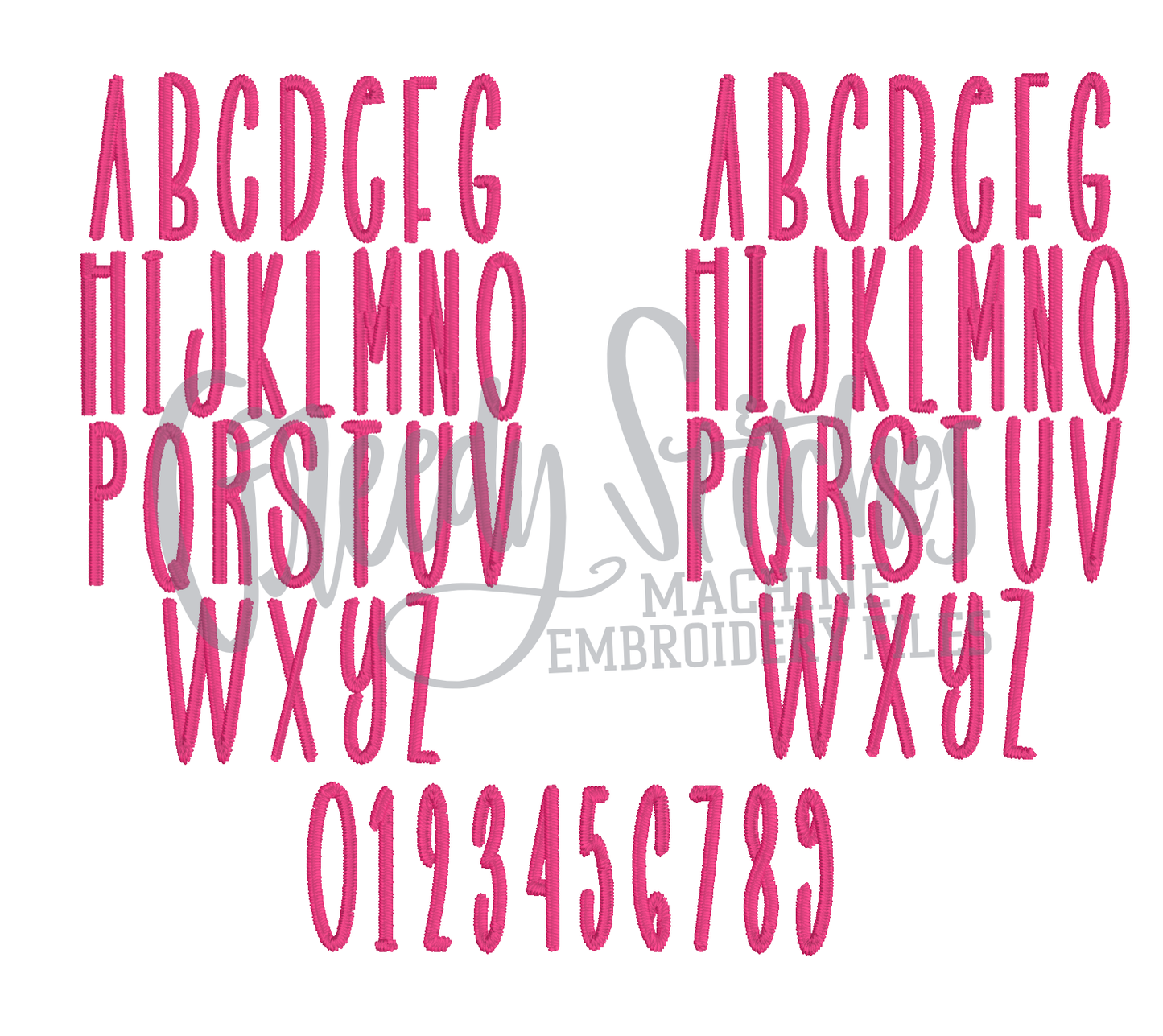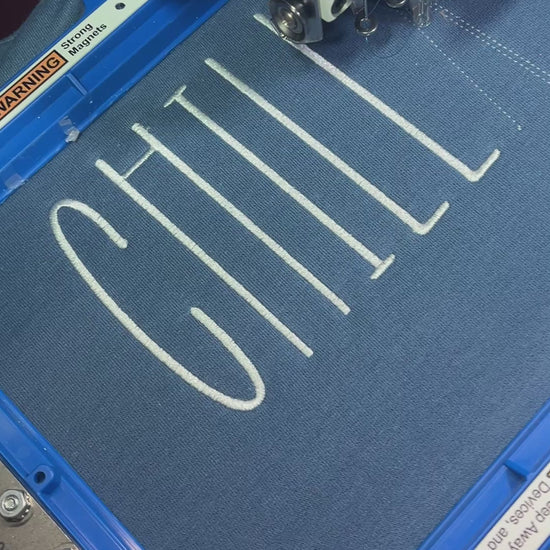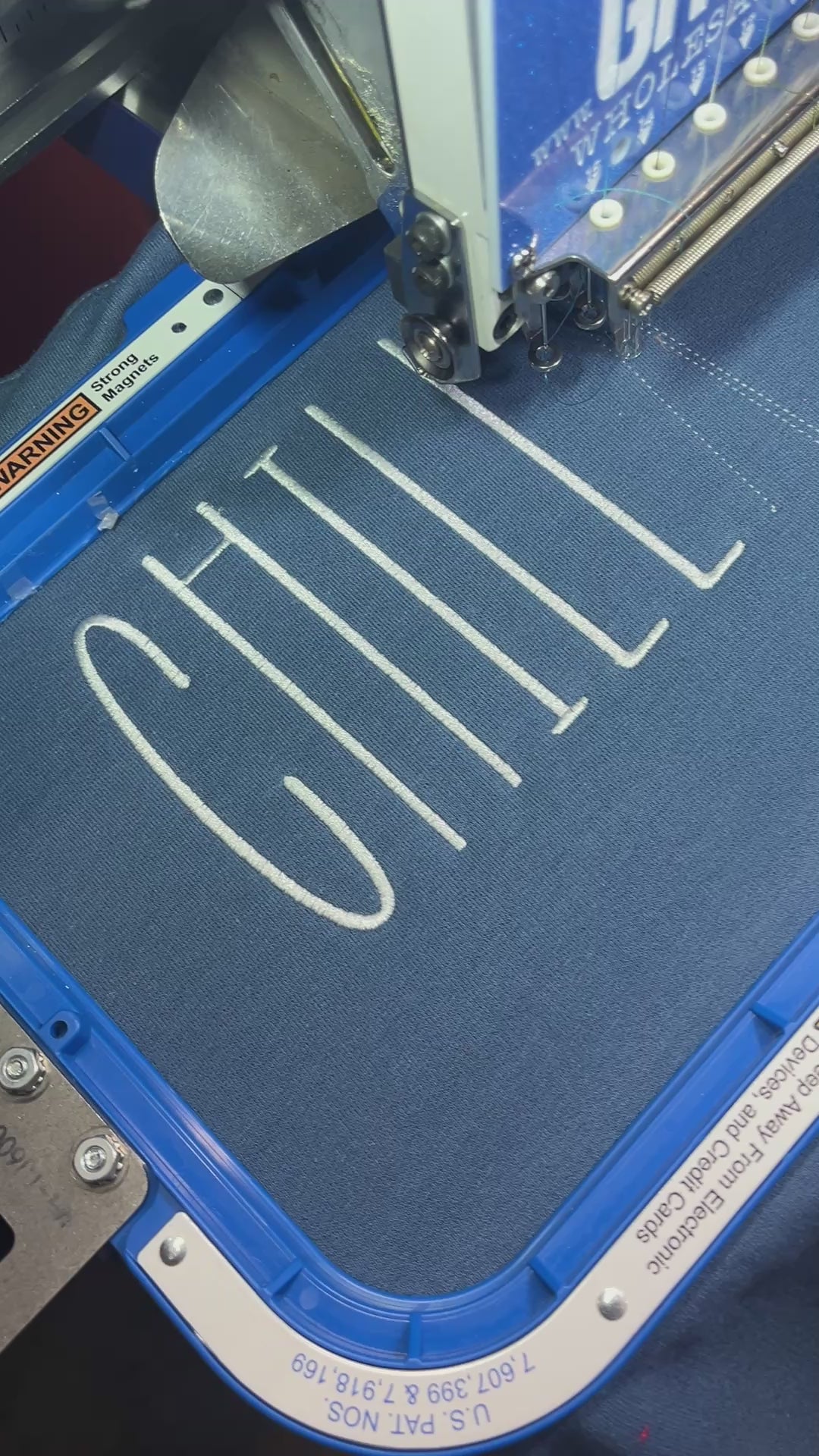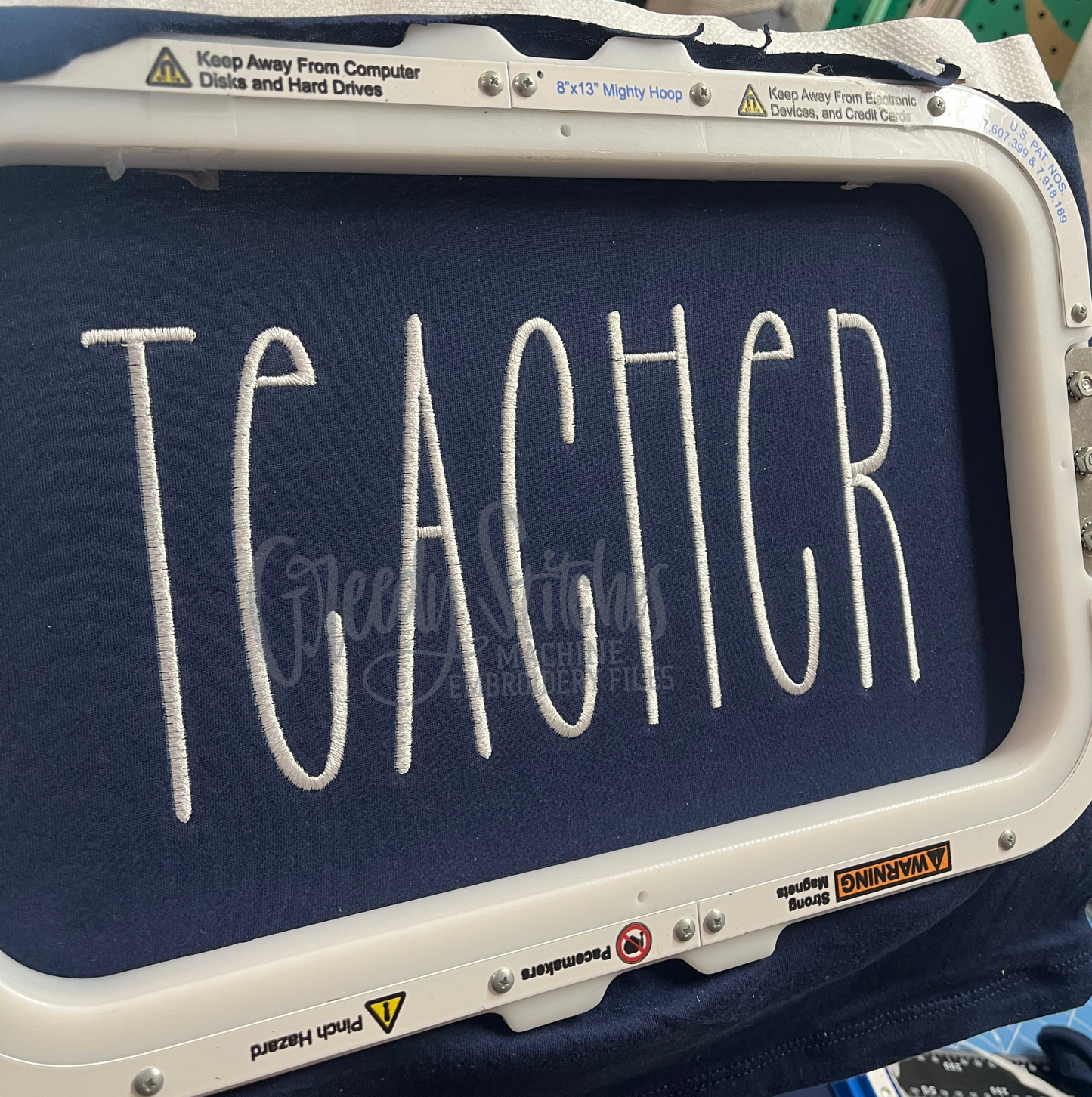
Chillax Machine Embroidery Font - 6 sizes
This is a satin stitch machine embroidery font. This is a native BX font, and it can be sized from 3" to 5.5."